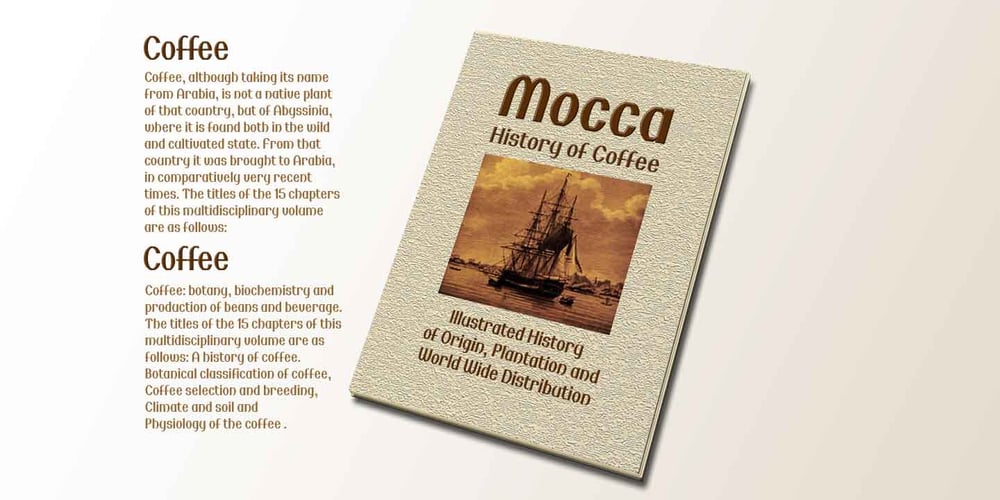
Mocca Pro Condensed Font Family was designed by Naghi Naghashian and published by Naghi Naghachian. Mocca Pro Condensed contains 1 styles and family package options. Mocca Pro is designed by Naghi Naghashian. It is a modern Sans Serif headline font. The Mocca Pro Condensed is a single weight font. Its modern design is a reminiscence of the classic Romanesque characters. This Font supports western and central European languages.